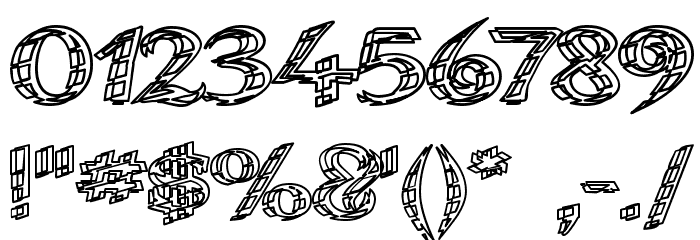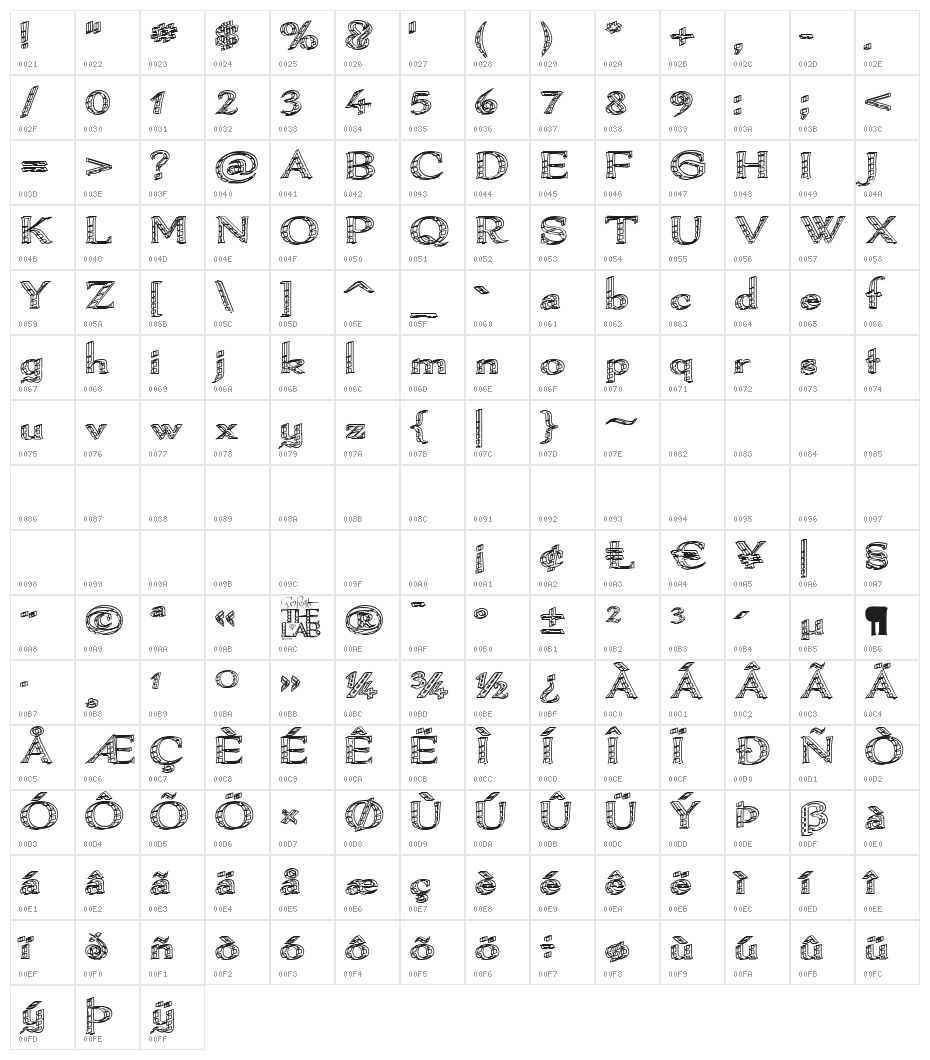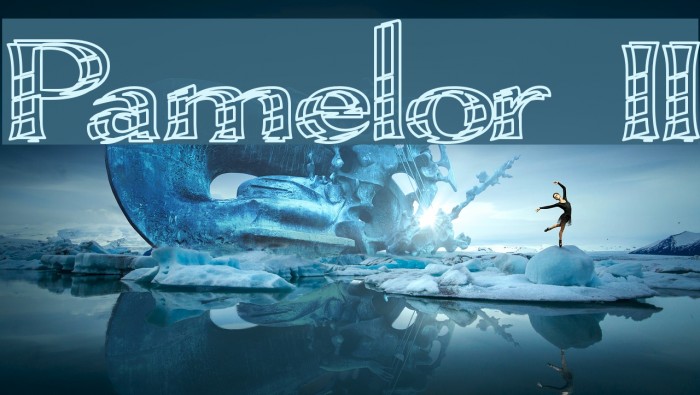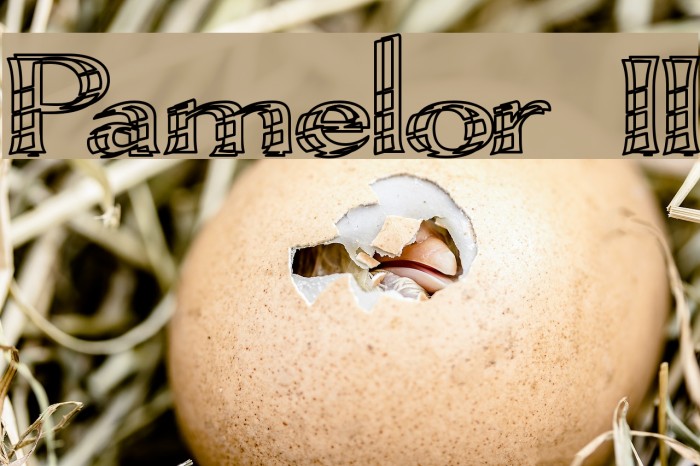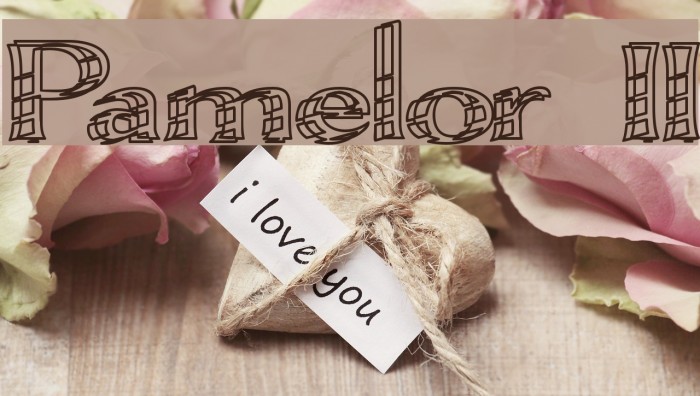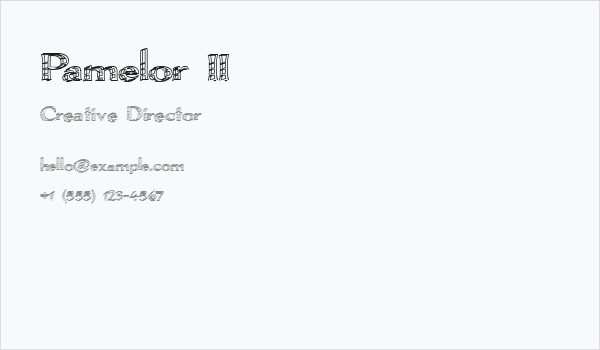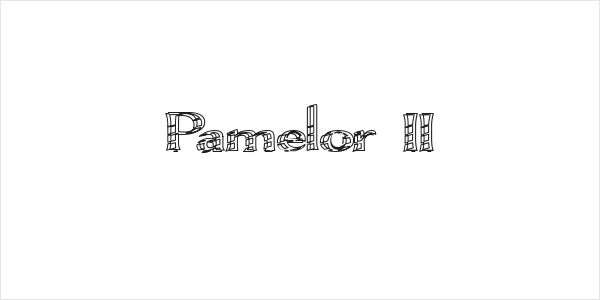
Pamelor II Font
Pamelor II Description
This font features a unique, decorative style with a three-dimensional, ribbon-like appearance. Each character is outlined with a bold, black stroke, creating a striking contrast against the white interior. The letters are uppercase and lowercase, with numerals and a variety of special characters. The intricate design includes diagonal lines and curves that give the impression of movement and depth. This font is highly stylized, making it ideal for projects that require a bold and artistic touch. The playful yet structured design makes it suitable for creative and eye-catching applications.
| Proposed Projects | Ideal for posters, logos, headlines, and any project needing a bold, artistic flair. |